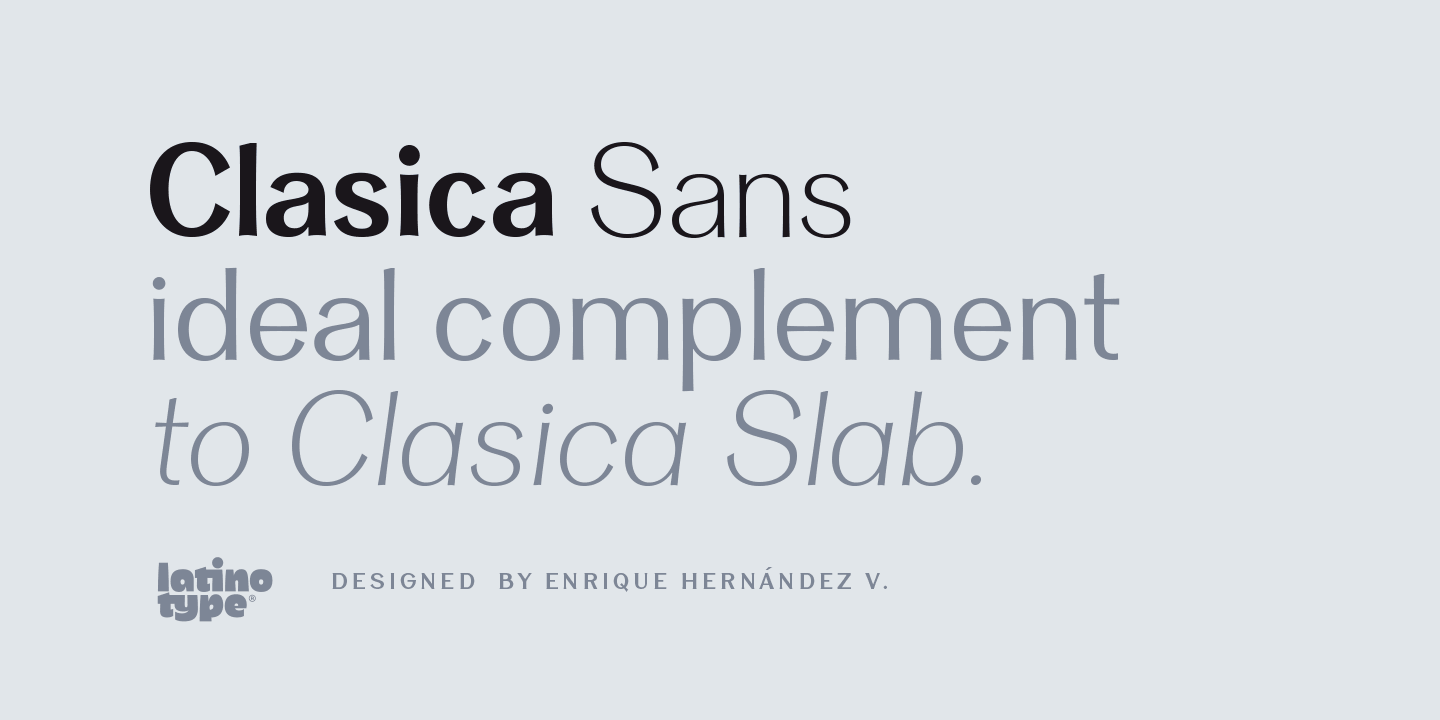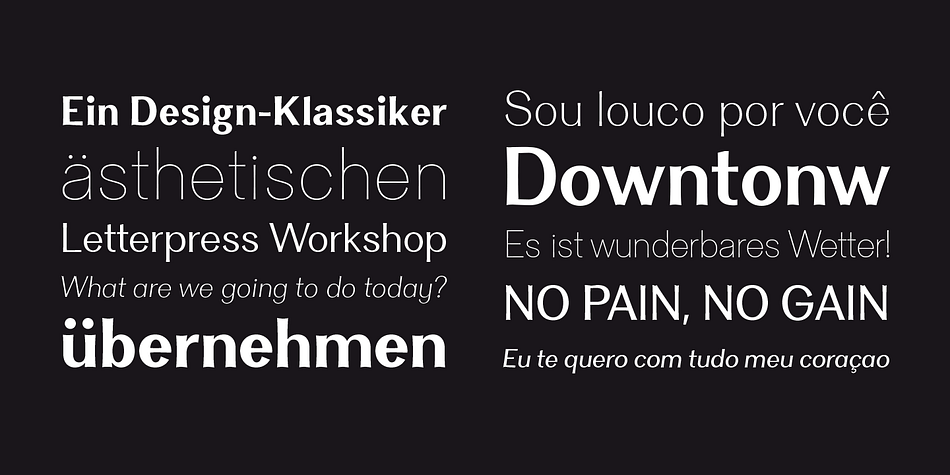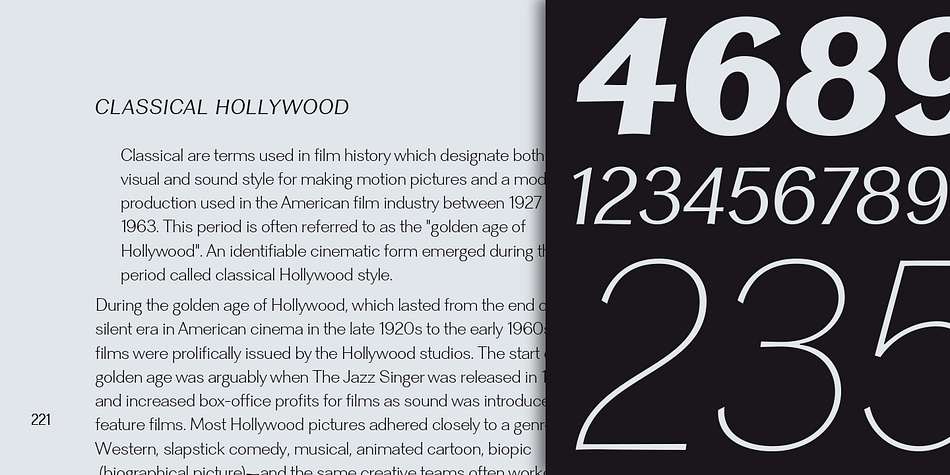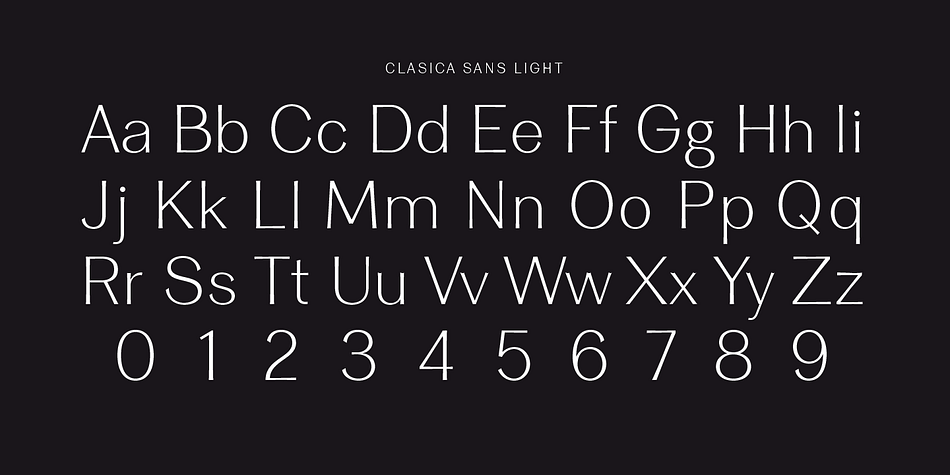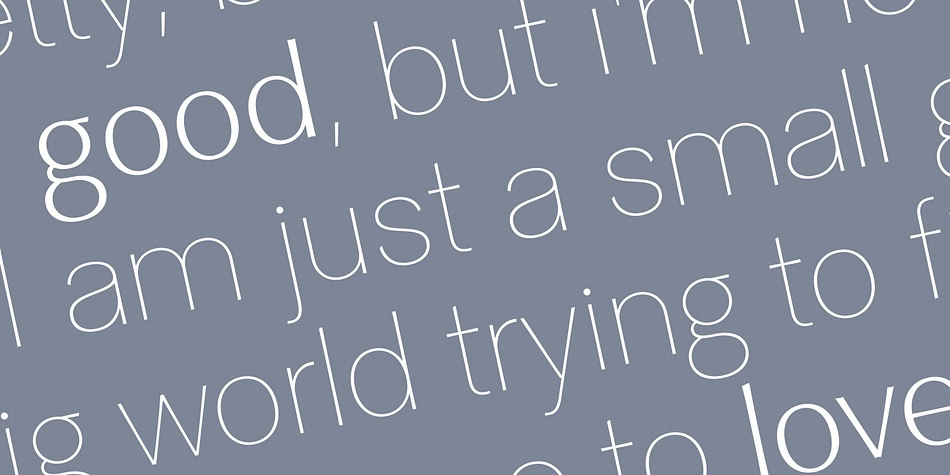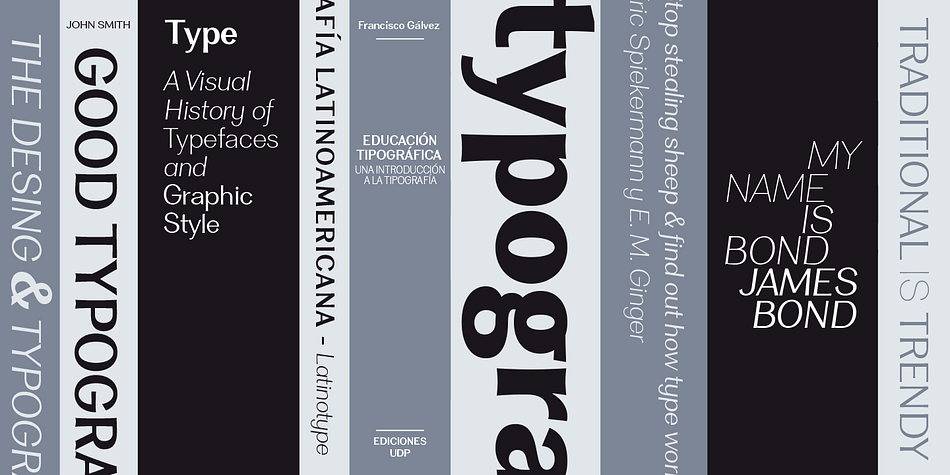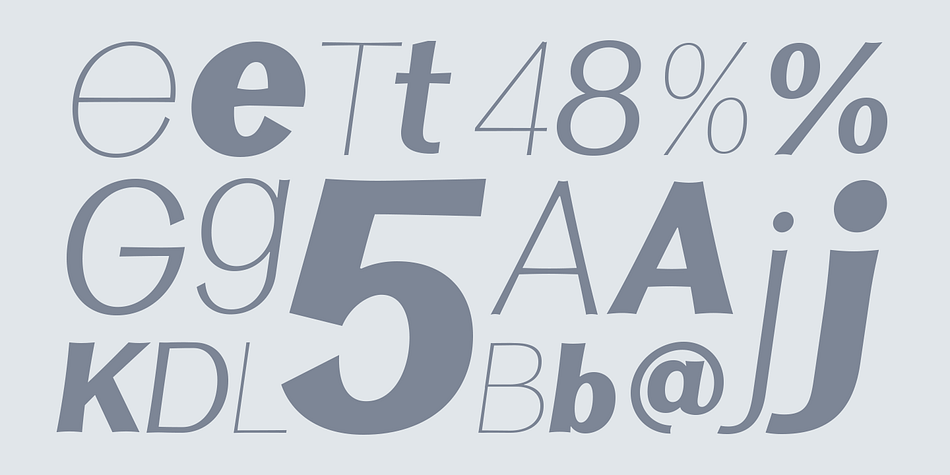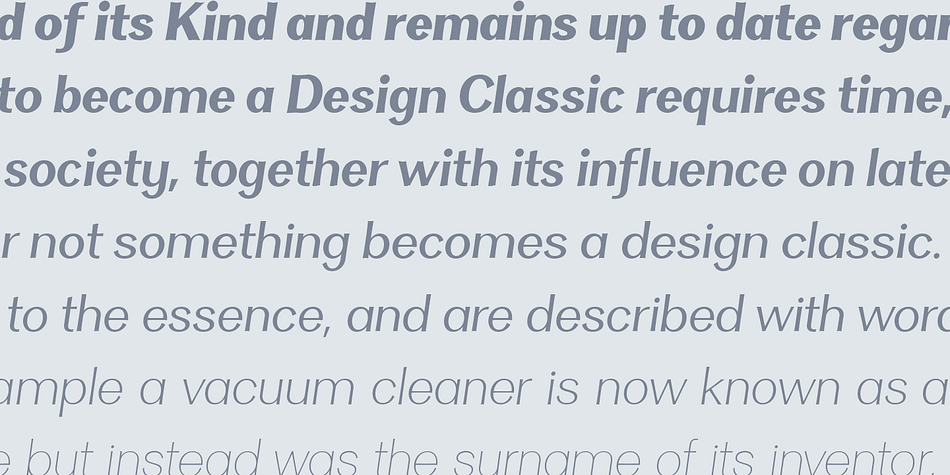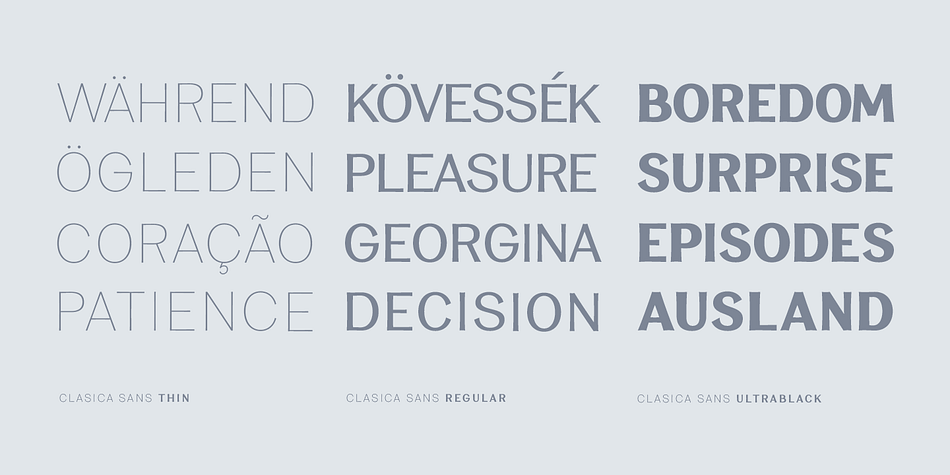
Clasica Sans is a sans serif font family. This typeface has fourteen styles and was published by Latinotype.
Clasica Sans is a fresh and contemporary typeface, consisting of 7 standard fonts plus italics. It is perfect for publishing and print design. Clasica Sans comes in various weights, working well into paragraphs with small and large text sizes. Regardless of its use, size or alignment, the family keeps a solid look, thanks to its balanced contrast. In short, it is a font based on classical proportions, but with a fresh and contemporary look, ideal for the most versatile designs.